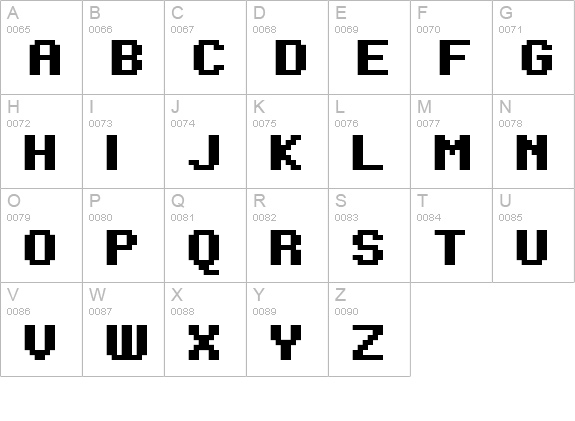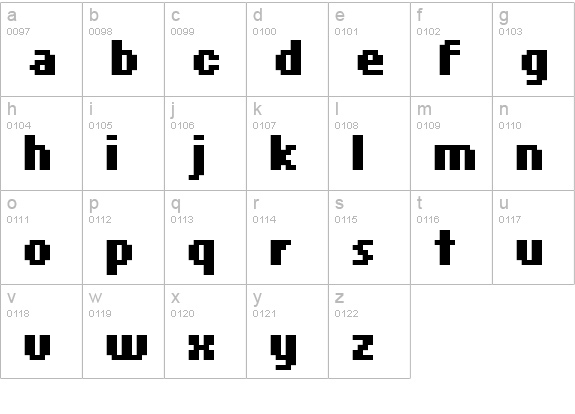
FFF Urban Bold Font Details
FFF Urban Bold is a strong, high-contrast variant in the FFF typeface family \xE2\x80\x94 well suited to headlines, attention-grabbing titles, and strong calls-to-action.
FFF Urban Bold font is a striking and modern typeface that exudes confidence and style. Its bold letterforms make a powerful statement, perfect for headlines, titles, and branding projects. The strong, geometric shapes of this font give it a contemporary edge, while maintaining readability and impact. This versatile font is ideal for a wide range of design applications, from posters and flyers to websites and social media graphics. The bold weight of FFF Urban Bold ensures that your message will stand out and grab attention. Best of all, FFF Urban Bold is available for free download at FontsMarket.com. This means that you can start using this impressive font in your projects without any cost. Don't miss out on the opportunity to add FFF Urban Bold to your font collection today!